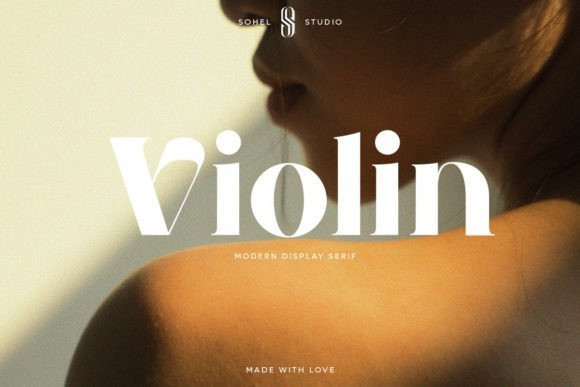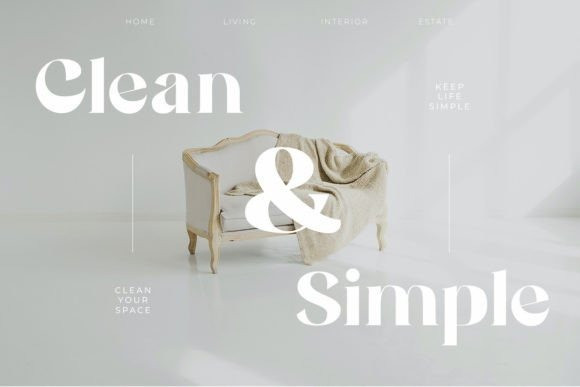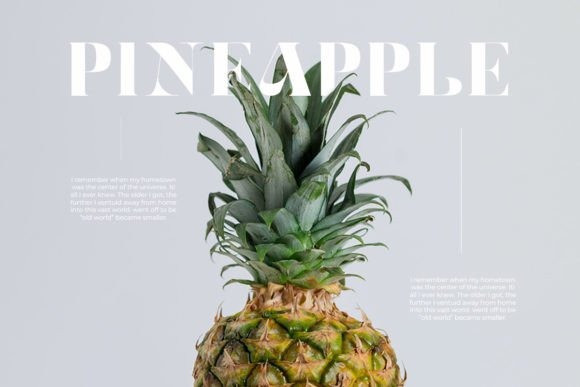
Violin Font
Violin is a modern and stylish serif display font. No matter the topic, this font will be an incredible asset to your fonts’ library, as it has the potential to elevate any creation.